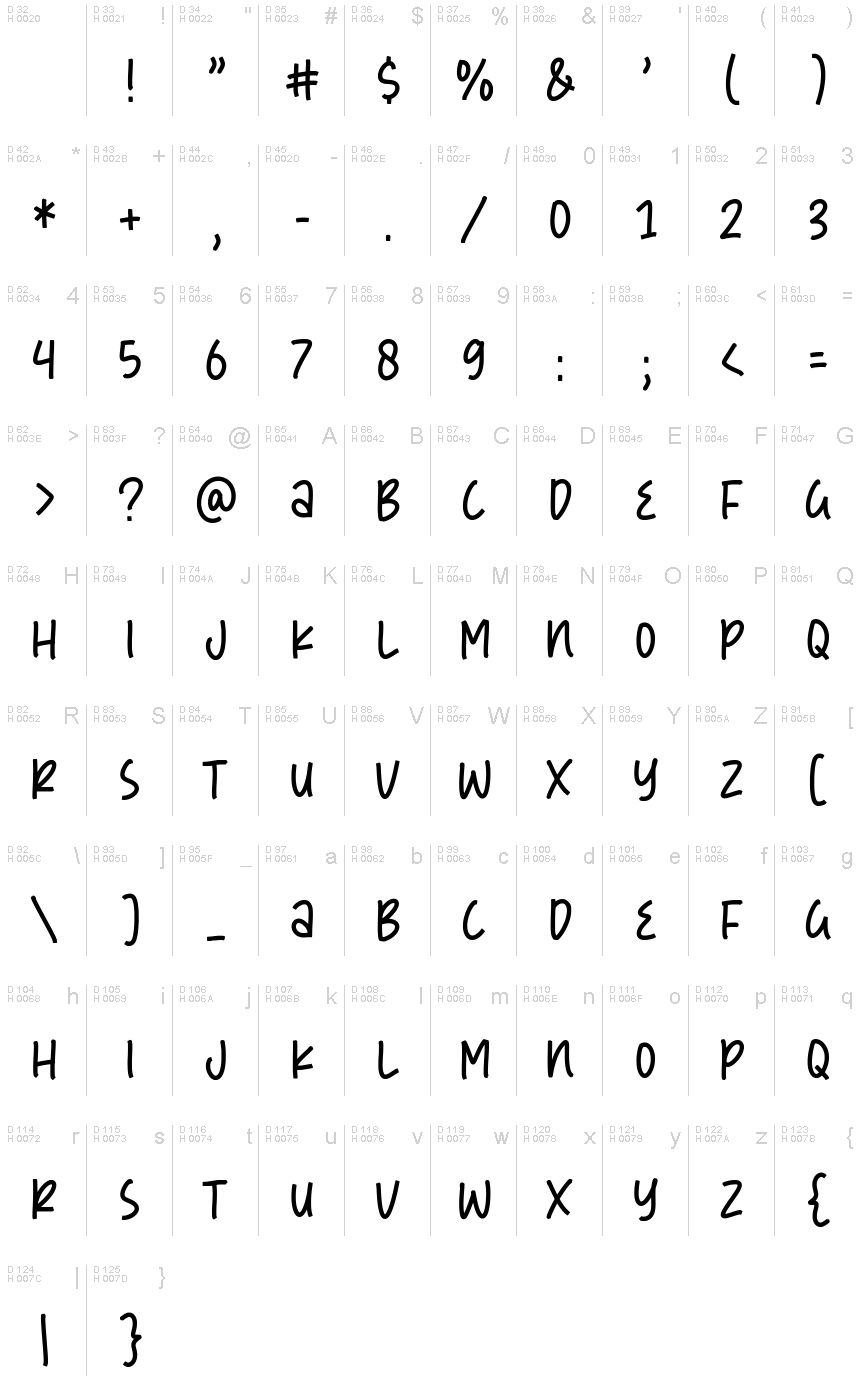
Cookie Jars
Cookie Jars font, crafted by Balpirick Studio, exudes a playful yet charming handwritten style that instantly captures attention. Its expressive curves and whimsical loops create a sense of warmth and friendliness, making it perfect for evoking nostalgia or inviting engagement.
The bold strokes lend an aura of confidence while the fluidity in its design breathes life into any text. This font's distinct personality shines brightly in headings, branding projects, or artisan packaging, where creativity knows no bounds.
Ideal for food-related ventures, children's products, or joyful invitations, Cookie Jars effortlessly adds a delightful touch to various designs. Whether used in print or digital mediums, this font transforms ordinary messages into memorable statements that resonate with audiences.